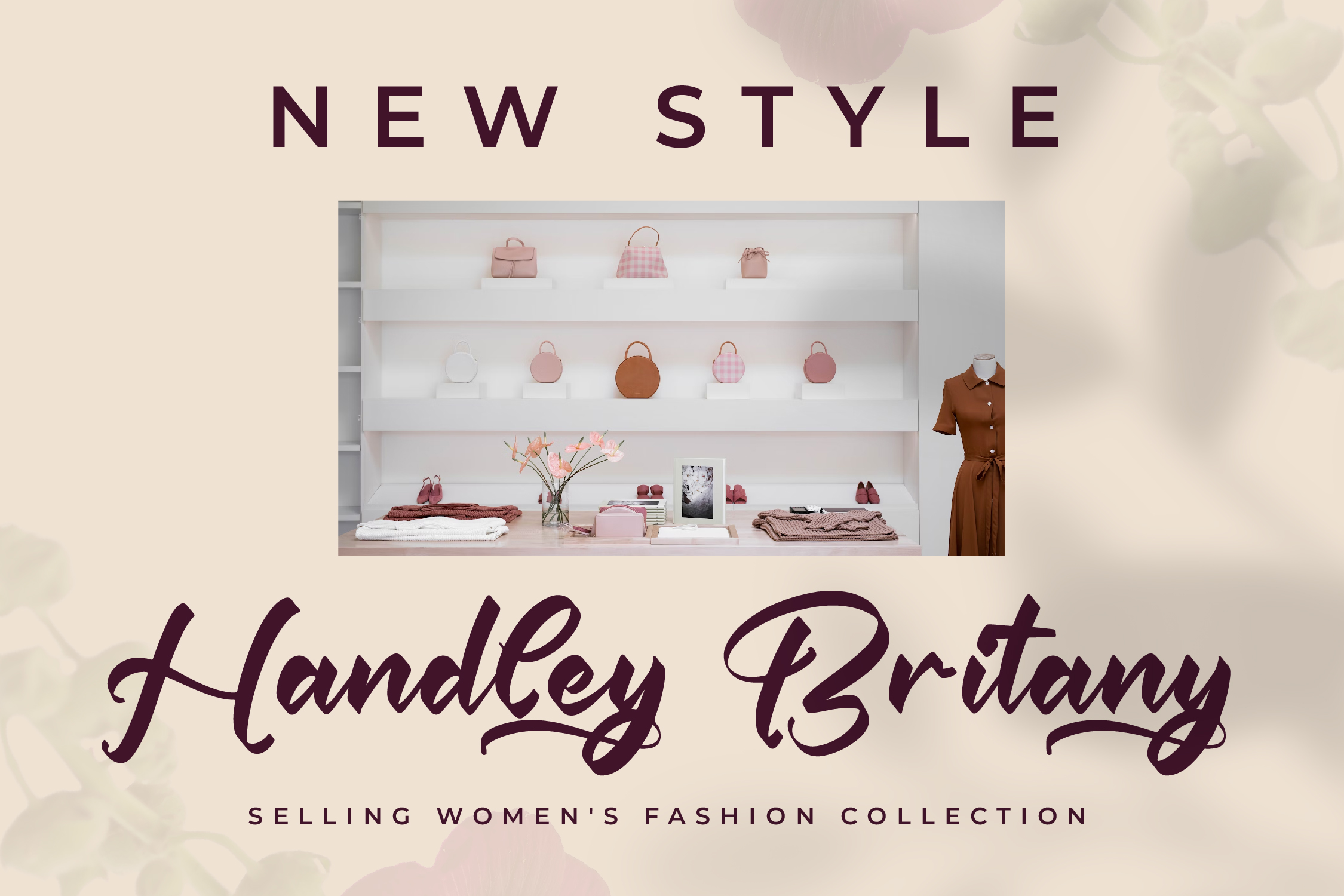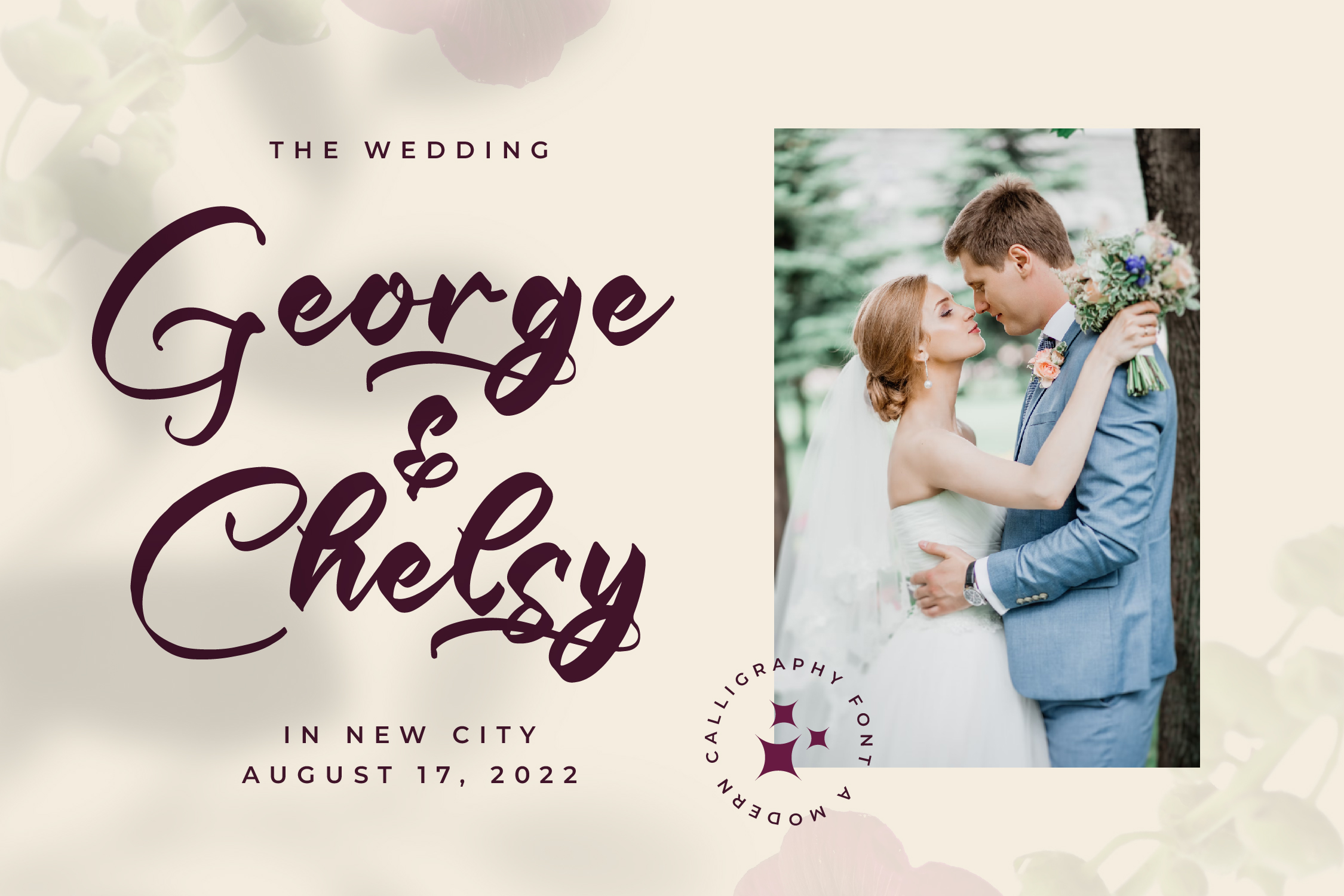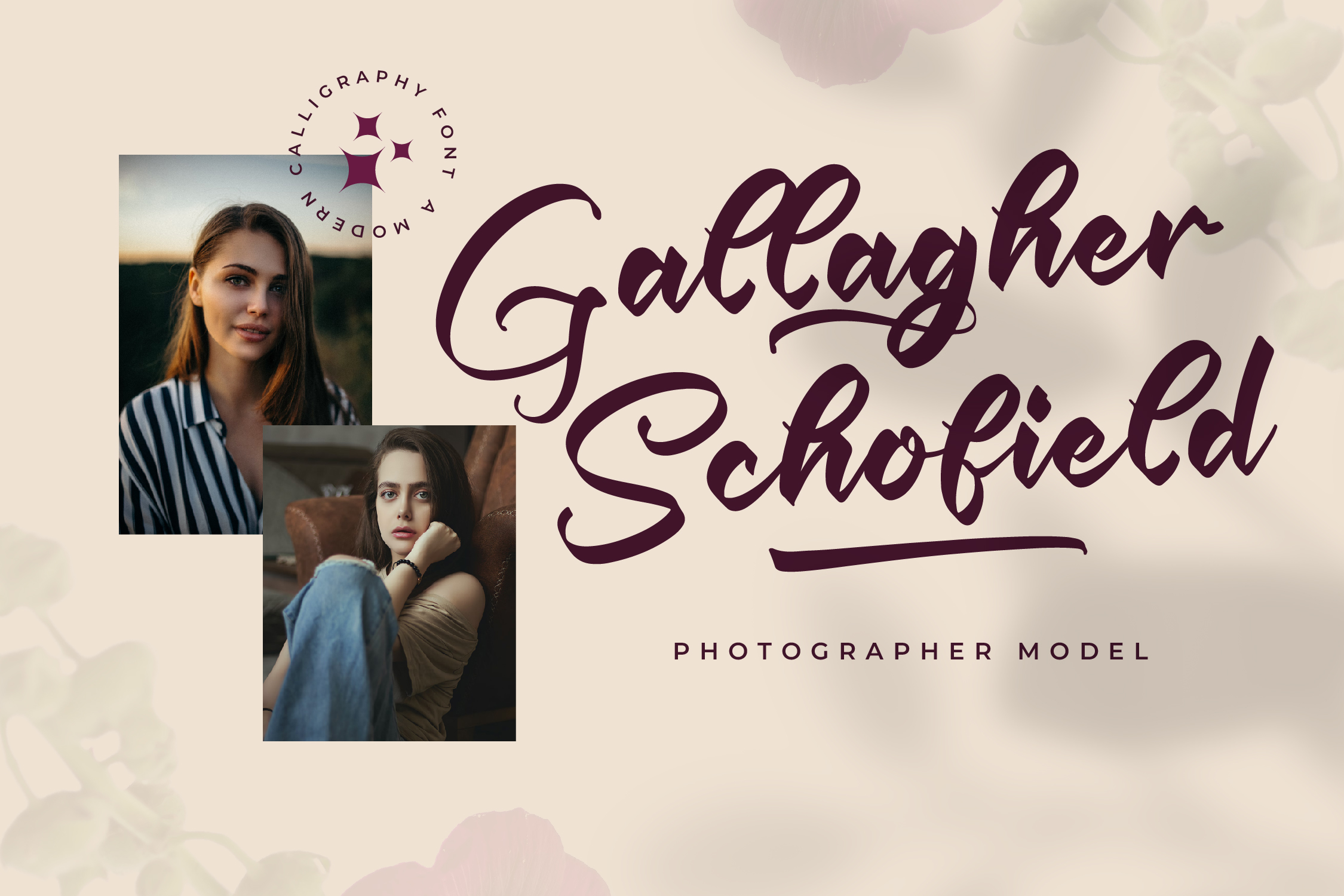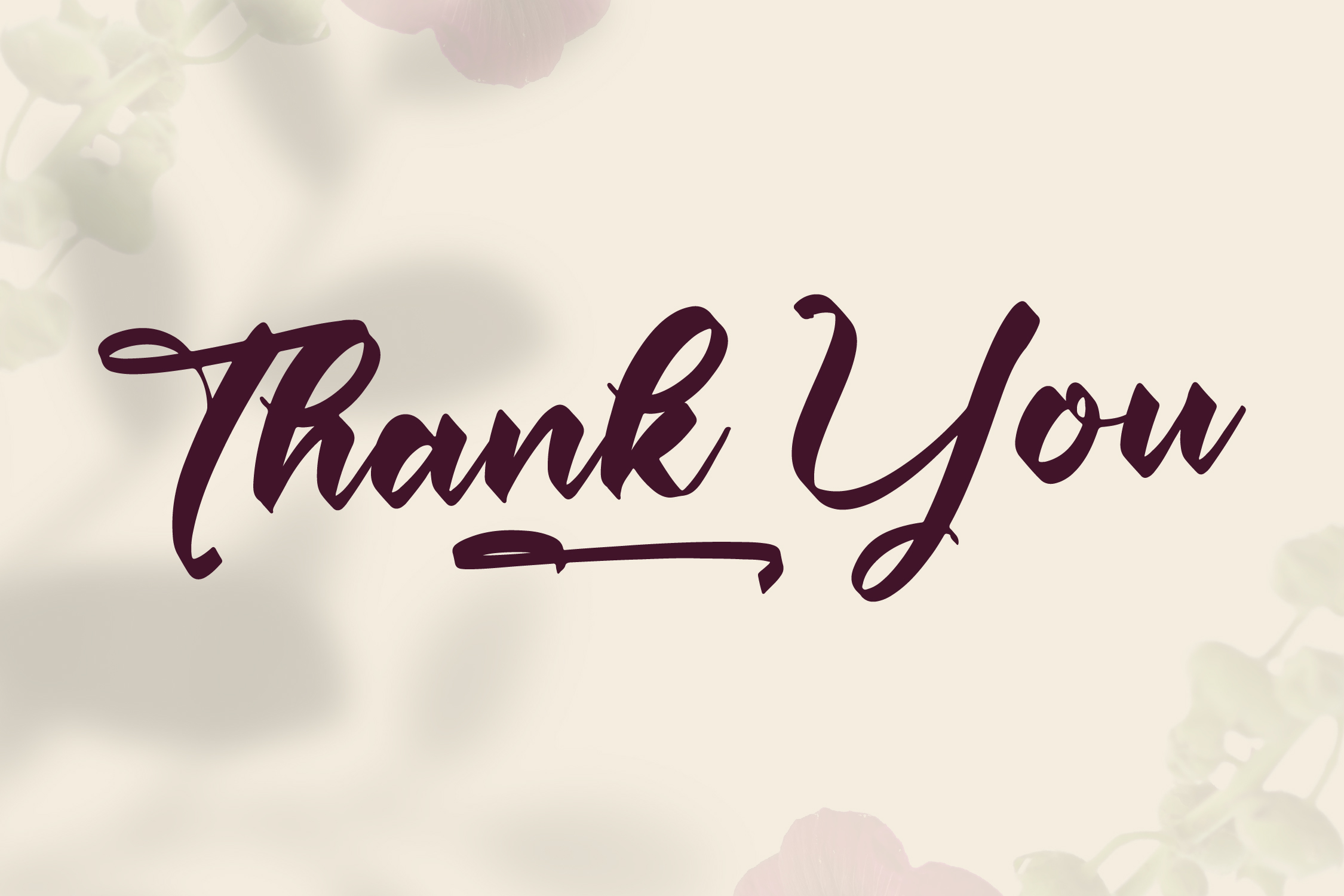
Michele Fatehry Font
Michele Fatehry Script Font is a Modern Calligraphy Font, suitable for any projects such as: logos, branding projects, homeware designs, product packaging, mugs, quotes, posters, shopping bags, t-shirts, book covers, name card, invitation cards, greeting cards, label, photography, watermark, special events, and all your other lovely projects that need a beautiful script taste.